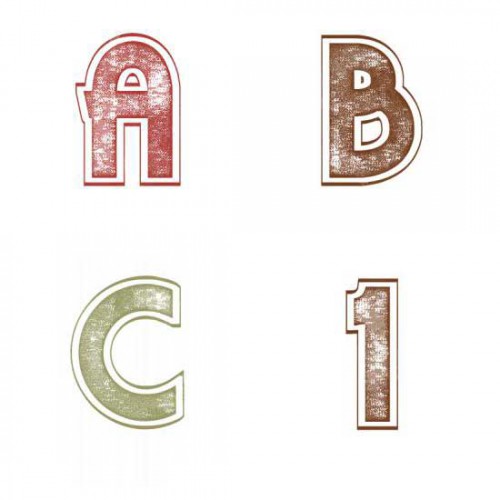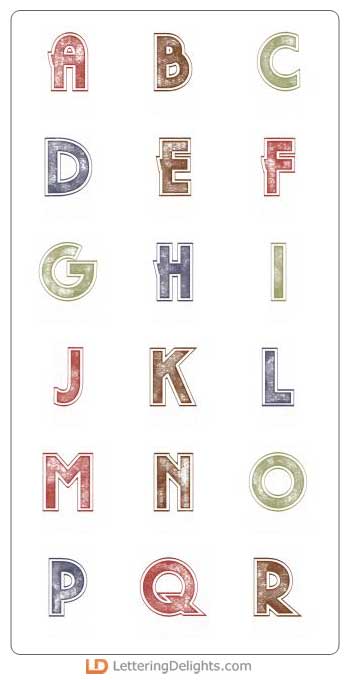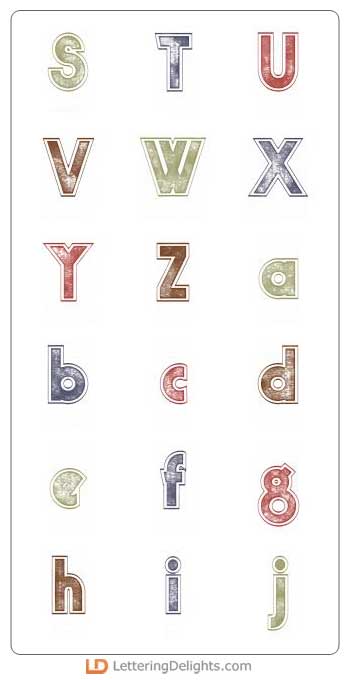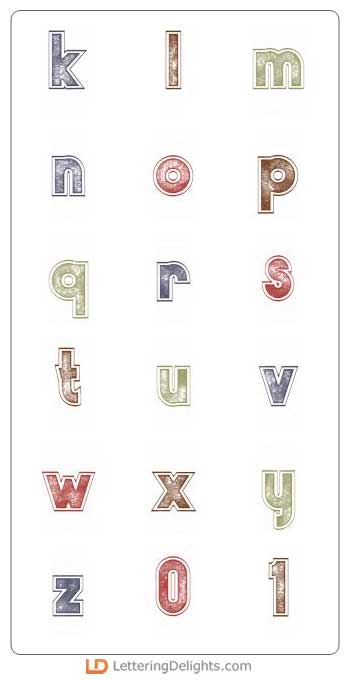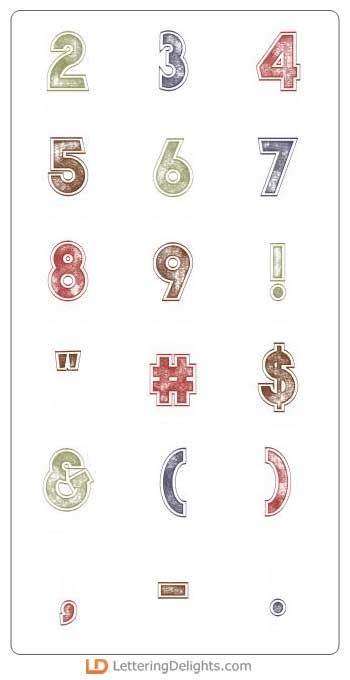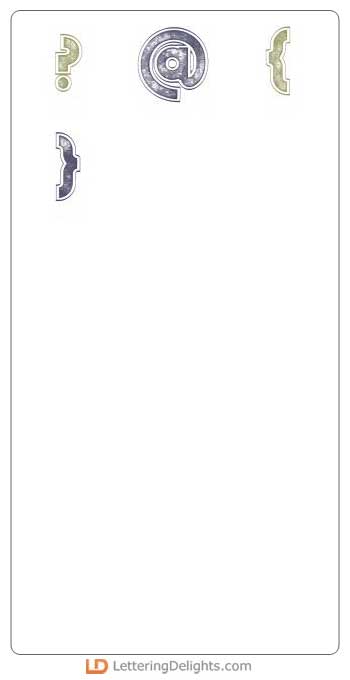
The fun colors and textures of the Wanderlust Alphabet make it fun for so many uses, but of course, it is just right with all of the elements in the Wonders of the World Collection.